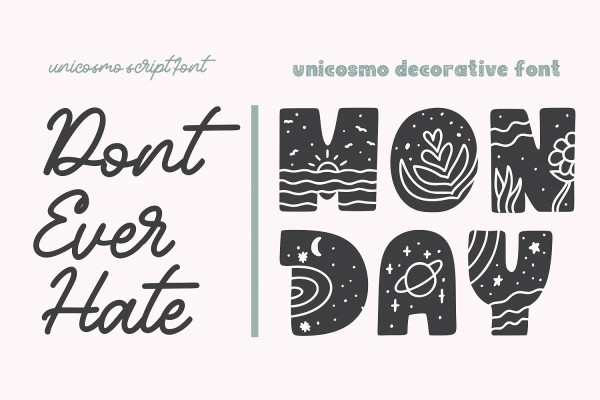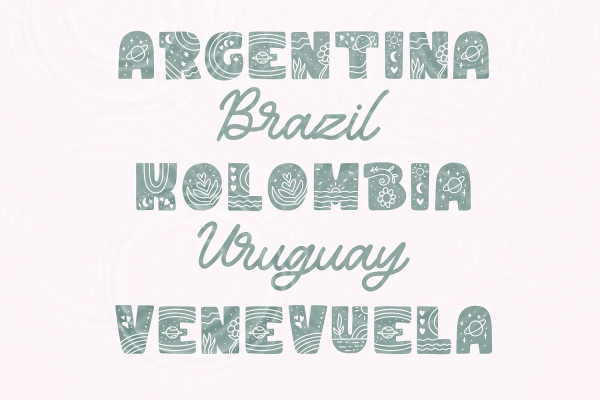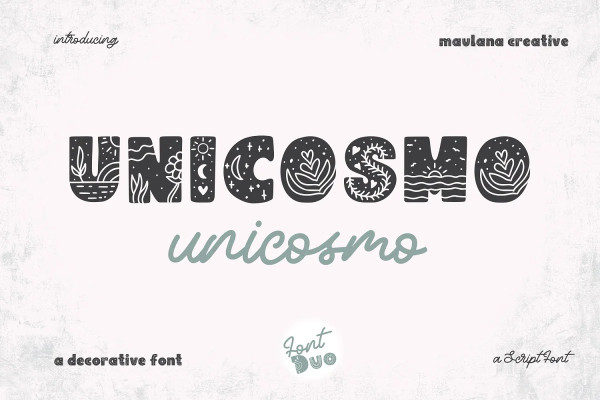
Unicosmo Font
Unicosmo Font is an experimental decorative handwritten sans serif font. With bold patterns stroke, fun character with a bit of ligatures and alternates. To give you an extra creative work. Unicosmo font support multilingual more than 100+ language. This font is good for logo design, Social media, Movie Titles, Books Titles, a short text even a long text letter and good for your secondary text font with script. Make a stunning work with Unicosmo font.